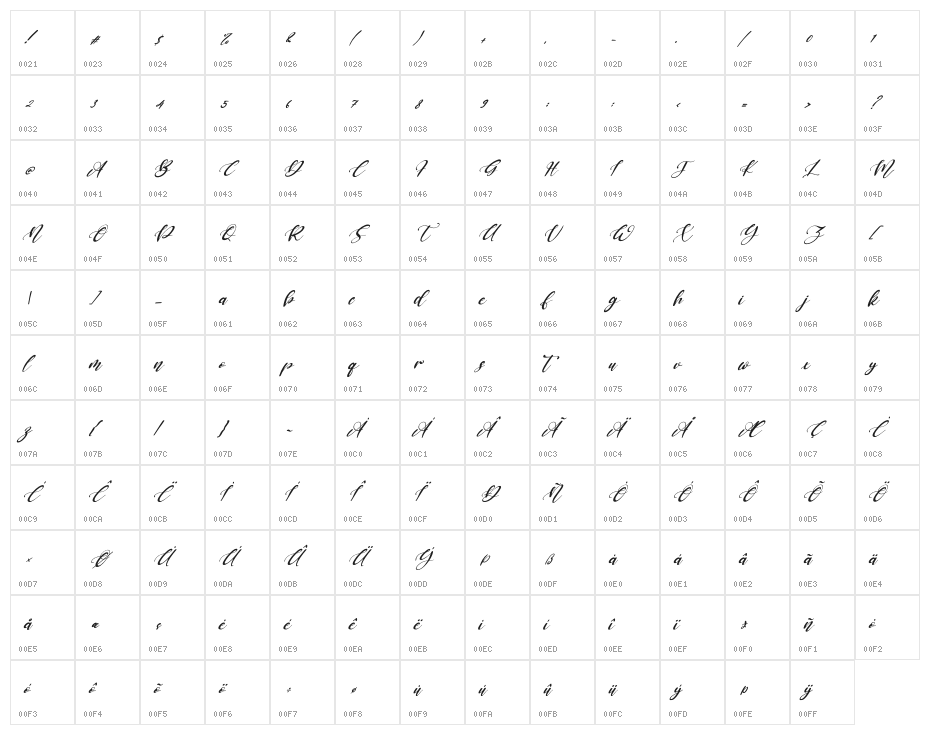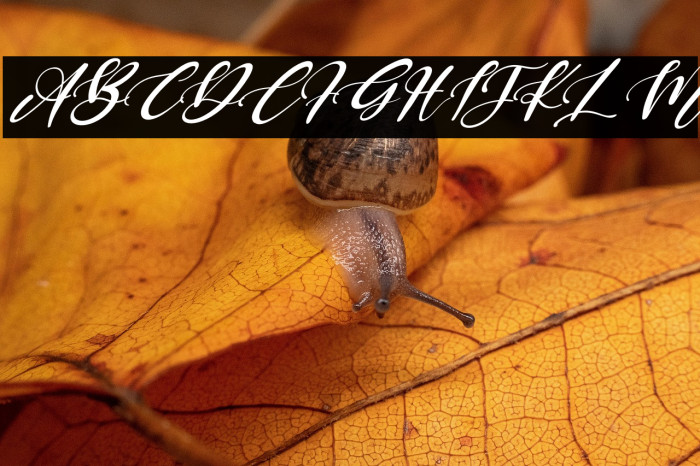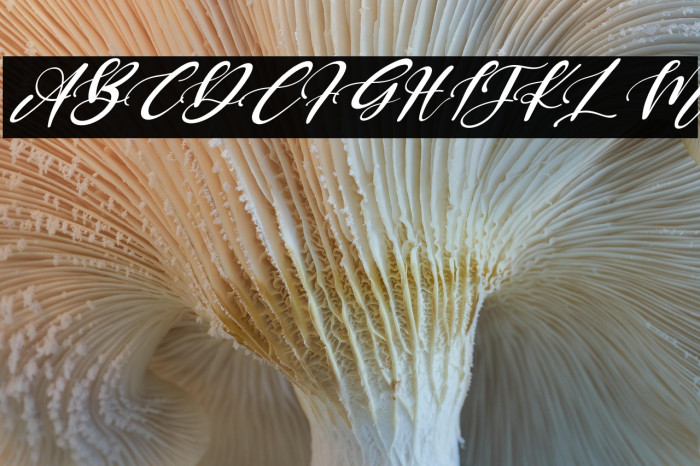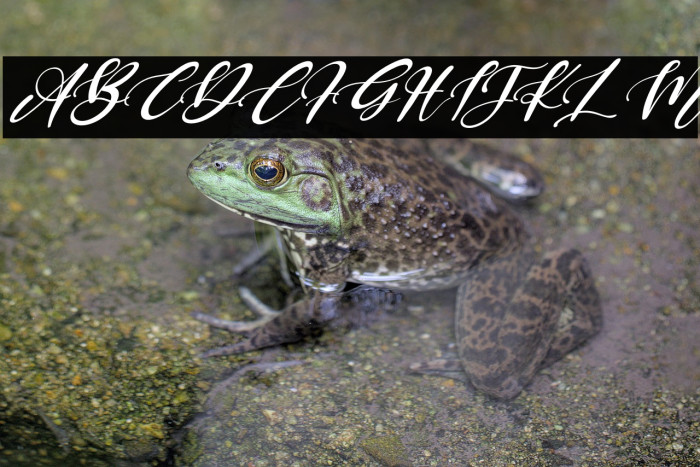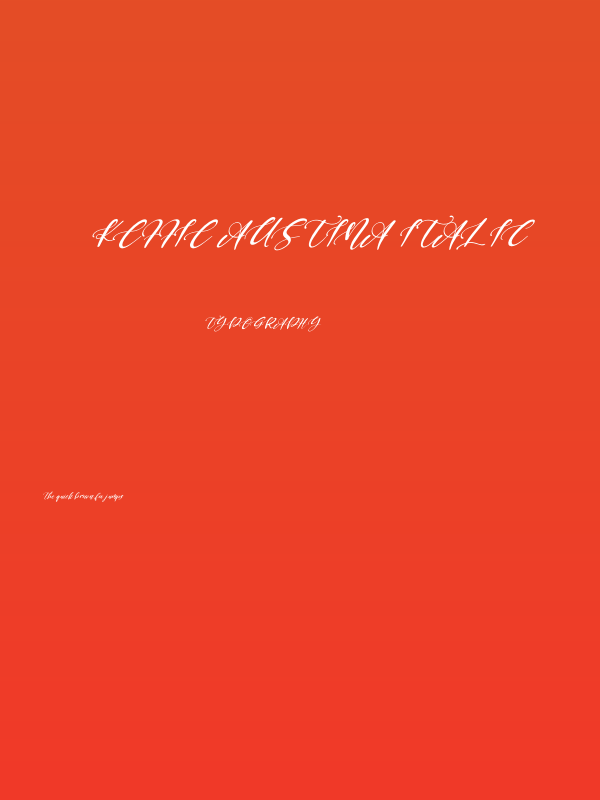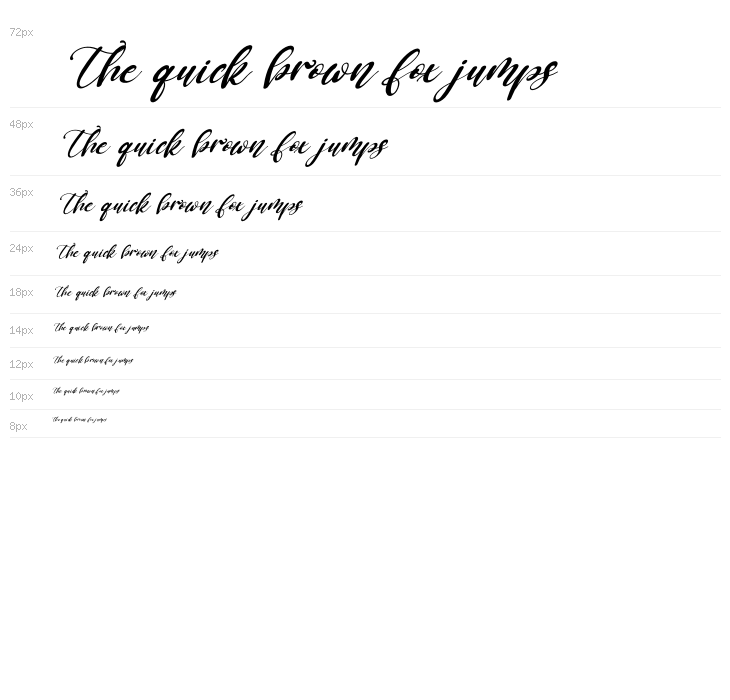
Keffie Austina Italic Font
Keffie Austina Italic Description
This font exudes elegance and sophistication with its flowing, cursive script style. The letters are intricately designed with smooth curves and delicate loops, giving it a refined and graceful appearance. The uppercase letters are particularly ornate, featuring elaborate swashes and flourishes that add a touch of drama and flair. The lowercase letters maintain a consistent flow, complementing the uppercase with their own subtle embellishments. The numerals and special characters are crafted with the same attention to detail, ensuring a cohesive look across all elements. This font is perfect for projects that require a touch of elegance and class.